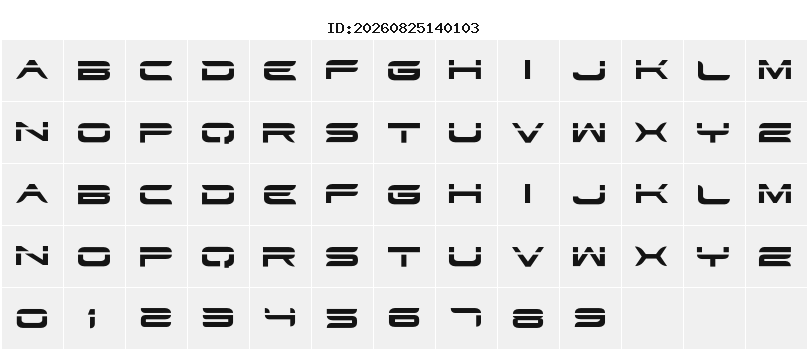
STR Preview
About STR.otf
STR.otf is a modern, elegant sans-serif font designed for ultimate readability and visual harmony. Perfect for branding, headlines, web design, and print materials.